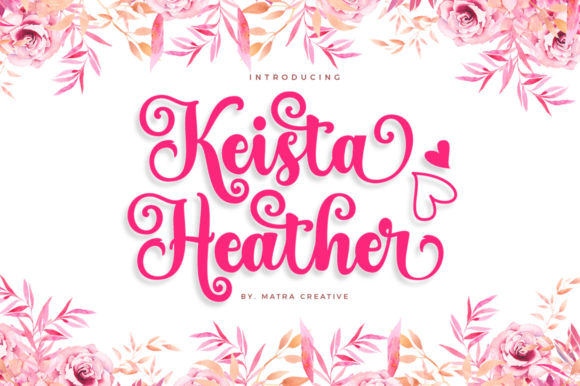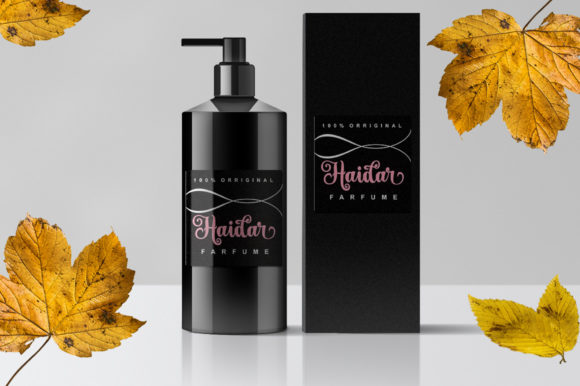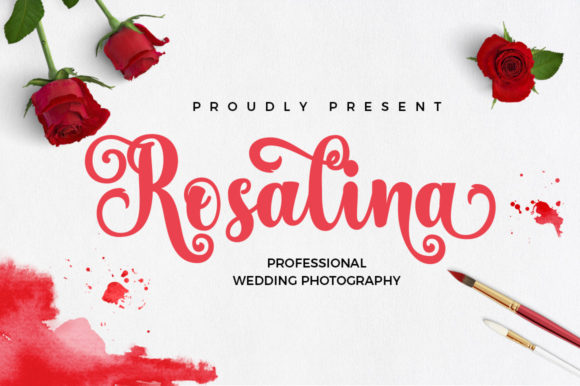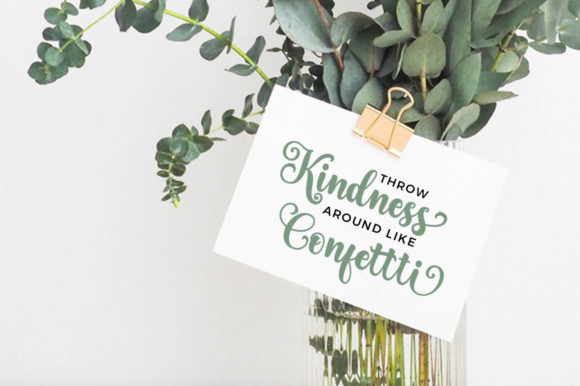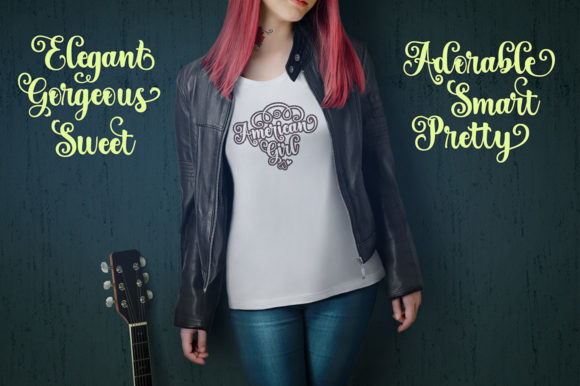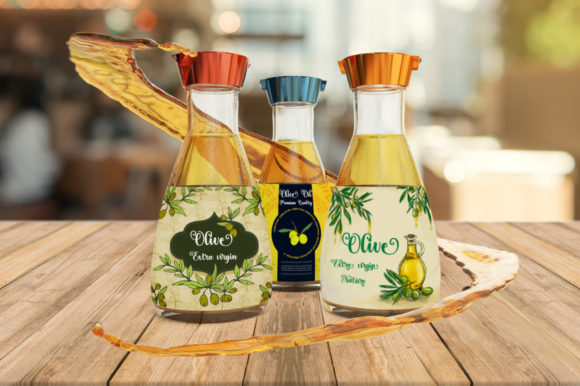
About Keista Heather Font
Keista Heather is a stylish and incredibly elegant script font. It looks stunning on wedding invitations, thank you cards, quotes, greeting cards, logos, business cards and every other design which needs a handwritten touch.